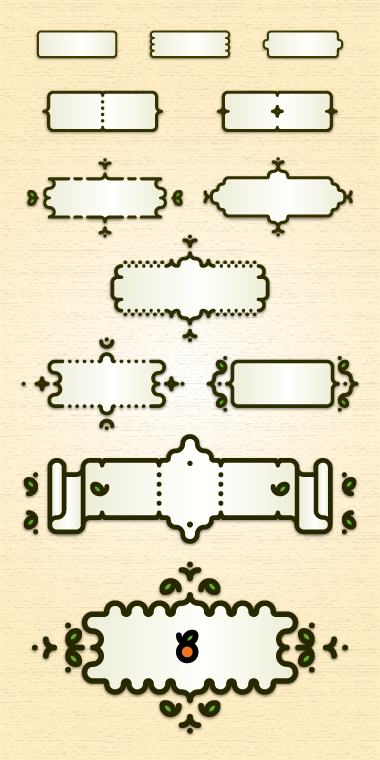
Arancito Fleurs
Cloned from Arancito by Em42.
Based on the Arancito fontstruction, a set of playful modular elements to create banners and borders, including a small collection of fleurons.
Upper case is for horizontal borders and decorations; lower case is for terminals; numerals and basic punctuation are for fleurons; @ contains the Arancito symbol.
This is my (small) entry for the FontStruct Illustration competition.
Very nice addition, go well with your superbe Arancito
Do you have a DeLorean? No joke. This is the second time someone passes me on the design of a font for Illucom in the last three days! Well done, and good luck, dottore!
super cool.
reminds me of "ZELDA - A link to the past"
useful.
@elmo: I'm curious about your fontstruction. Even if it may share the same concept, for sure your design is interesting and deserves to be submitted! :)